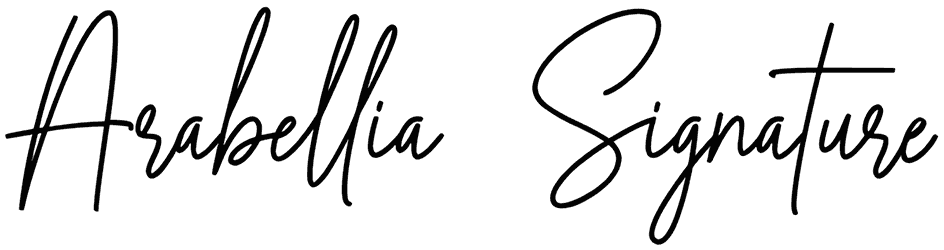
Arabellia Signature Font
Arabellia Signature font allows you to have more particular and professional signatures in your download list and use them in documents. This signature font is for people who prefer to be elegant and admire creating many invitation cards and friendly birthday themes with the utmost beauty.